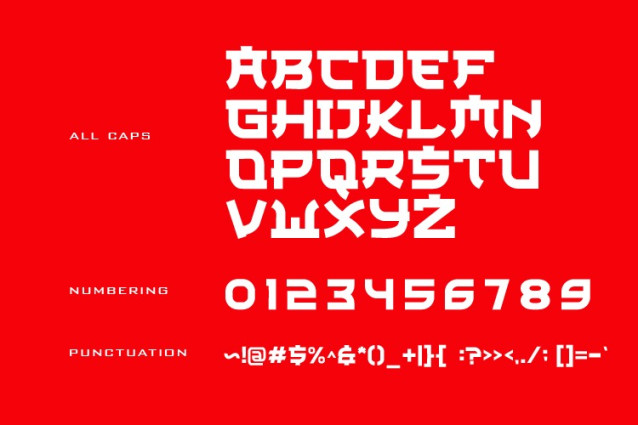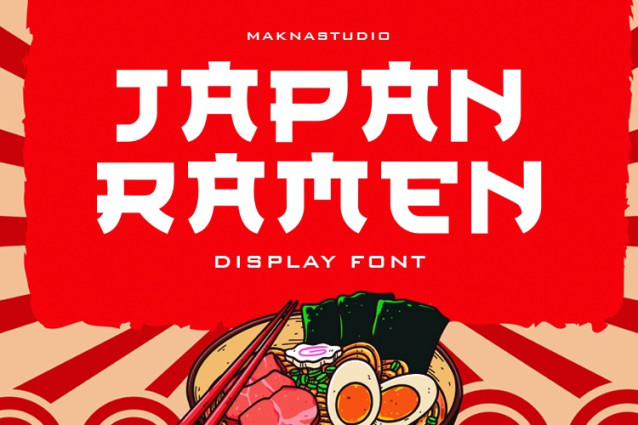
Japan Ramen Font
Japan Ramen Font – A bold and stylish Japanese-inspired typeface, perfect for menus, posters, logos, or anything that needs a taste of authentic Nippon flair. Let your text slurp up the spotlight! 🍜✨
Multilingual support character
Languages: English, Danish, Dutch, Estonian, Faroese, Filipino, Finnish, French, German, Hungarian, Icelandic, Irish, Italian, Norwegian, Polish, Portuguese, Spanish, Swedish, Turkish.